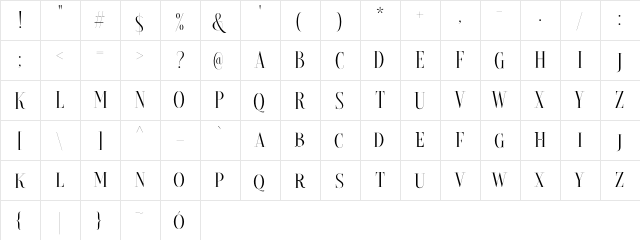
Brioche DEMO Regular
| Foundry | Sarid Ezra |
| Designer | Sarid Ezra |
Design Context for Brioche DEMO Typeface
Brioche DEMO offers clean, dependable letterforms without strong stylistic allegiance, making it a practical choice for designers who need flexibility.